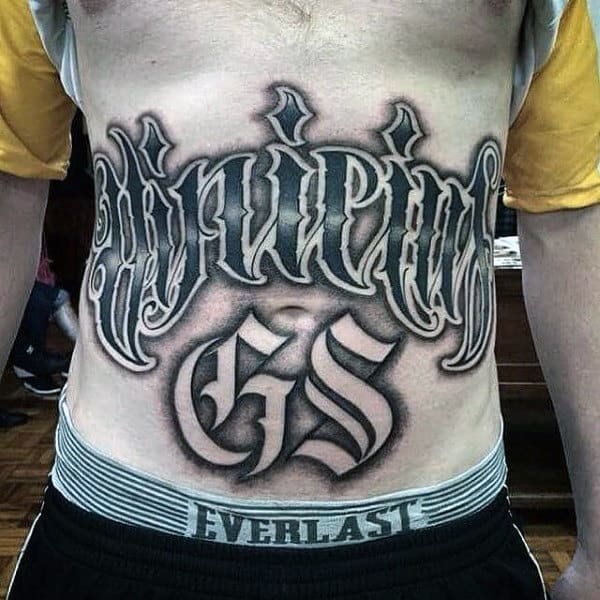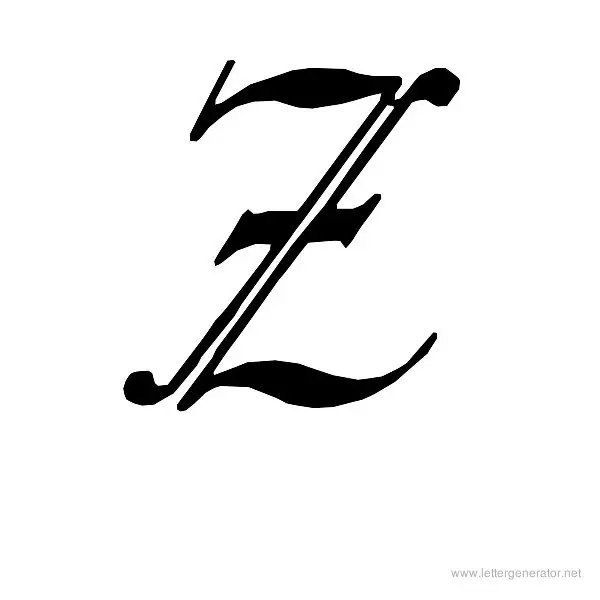
Little Lord Font Leroy -. Create tribal tattoo lettering old english tattoo lettering chinese tattoo lettering gangster.
50 Old English Tattoos For Men Retro Font Ink Design Ideas
Old english tattoo lettering fonts. Jan 26 2020 - Explore Bobbys board Old english font tattoo on Pinterest. Due to its intricate appearance it is very hard to draw with freehand. Old English tattoo fonts cover an entire range from those that copy the textual styles found in old compositions and looks to those with an advanced touch.
Our Old English font. Check it for free with Typograph. The font was inspired by two Victorian coins which featured a gothic script lowercase with quite modern looking.
Tattoo Girl by Otto Maurer. The free version provides all uppercase and lowercase letters and a few special characters too. New Old Englishdesigned by K-Type is a typical font family of old English style.
Sigamos con la J capitular 3a parte. Papel para acuarela de Garzapapel. The Old English is also called Blackletter that was started back about 1000 years ago.
Canterbury - Dieter Steffmann. Design your own tattoo with hundreds of tattoo lettering styles. Chopin Script - Dieter Steffmann.
160 Free Tattoo Fonts 1001 Fonts. Otherwise you cant find it normally anywhere. This textual style has an engraving look and it makes it very much popular to be used.
Tattoo fonts that blend a touch of Old English impacts with a contemporary style look truly alluring. Its simple to use. Free fonts often have not all characters and signs and have no kerning pairs Avenue A venue Tea T ea.
Old English Font Generator. Old English was also known as Anglo-Saxon and was a precursor to our currently modern English language. Old English Font The Old English script makes your designs look like they are from the Middle Ages.
It is also known as Blackletter or medieval calligraphy. Olde English Regular - Dieter Steffmann. Little Lord Font Leroy - Nicks Fonts.
Tattoo Lettering Styles Chicano Lettering Script Lettering Graffiti Lettering Tattoo Fonts Calligraphy Drawing Calligraphy Letters Letras Tattoo Graffiti Piece. Old English fonts are also used a lot in tattoo designs because they have a distinguished look and evoke some medieval atmosphere. This font is free for PERSONAL USE.
59 Professional Old School Tattoo Fonts to Download. Simply load the Old English font of your choice into the font generator add some text click Generate and youll get an up close and personal view of what it will look like as a tattoo. Las elecciones no sólo tienen pros.
If you want to create professional printout you should consider a commercial font. Find and download the right font for your next tattoo. In tattoos Old English is often used as an urban status symbol.
The old English font is also used a lot in text tattoo designs. Tattoo Lettering - design your own tattoo lettering using. Lettering styles include tribal traditional sailor blackletter fancy cursive script etc.